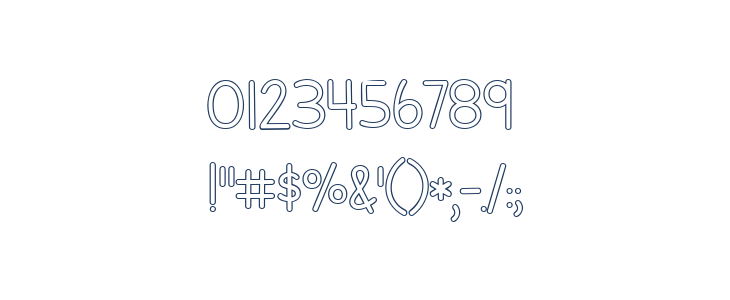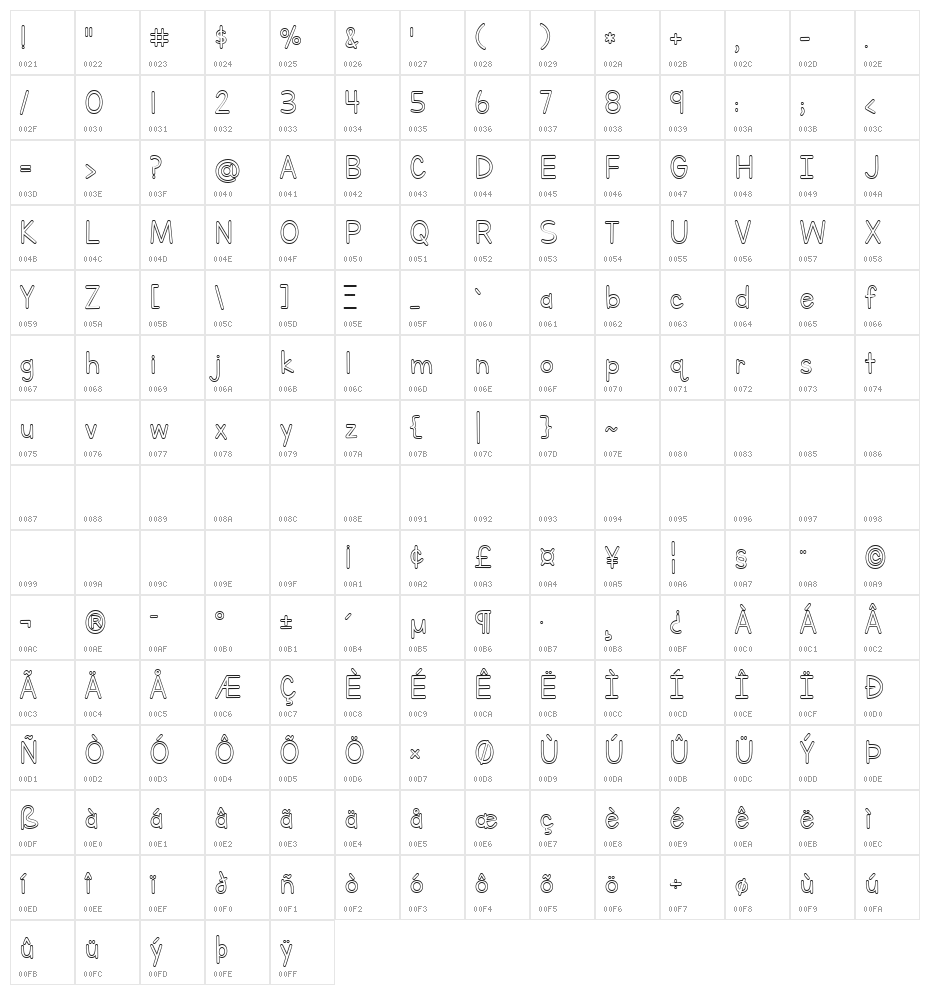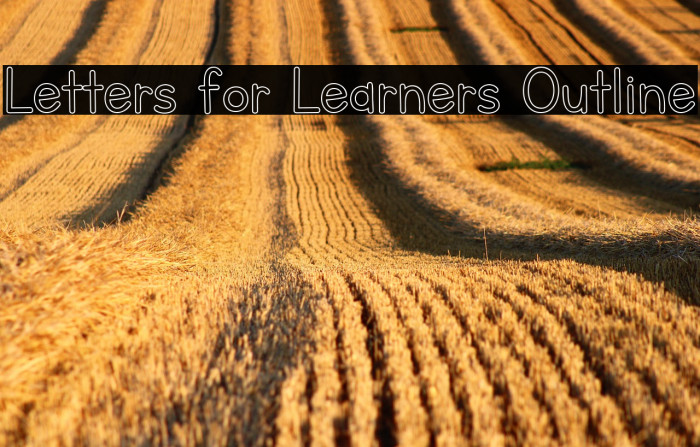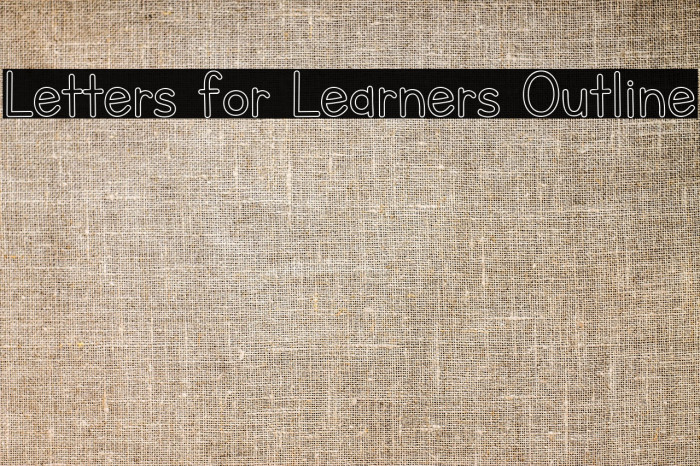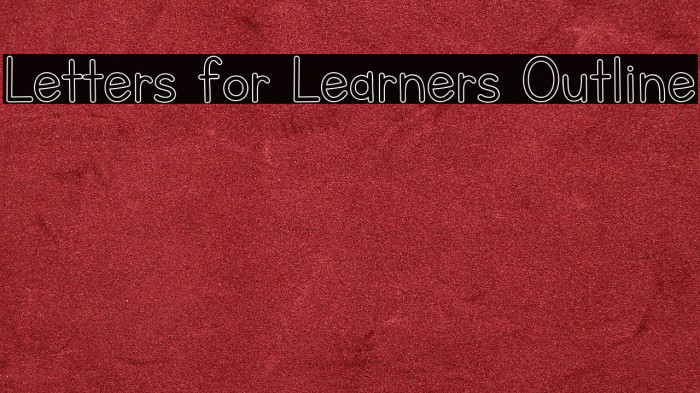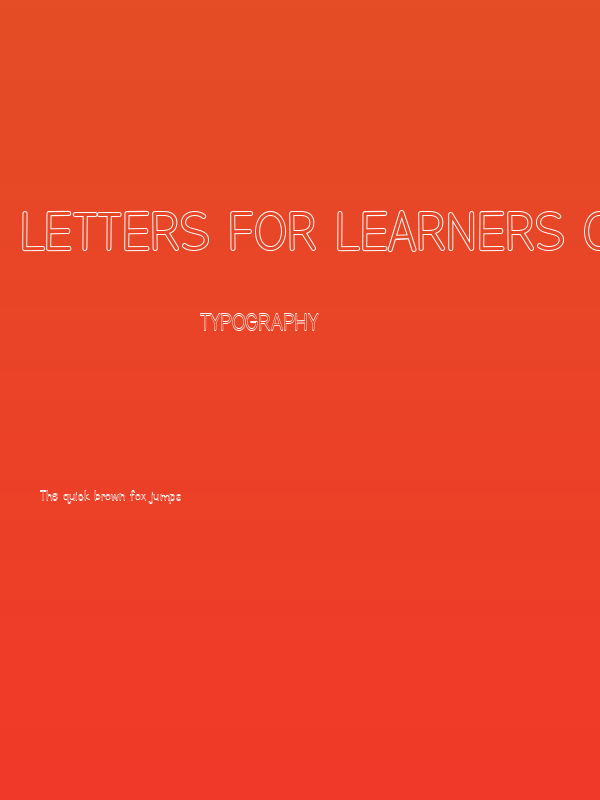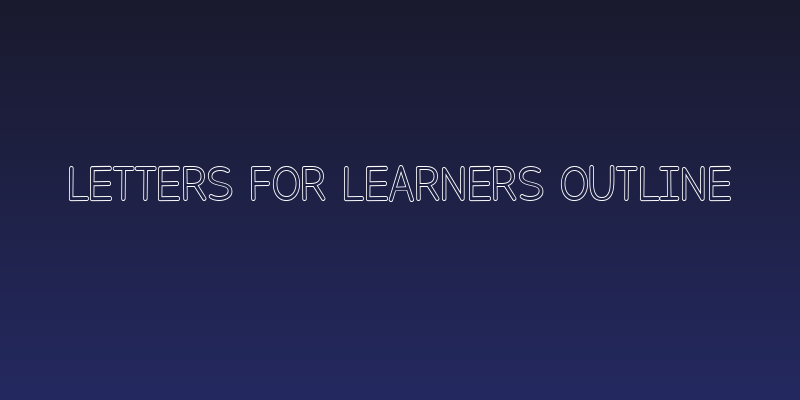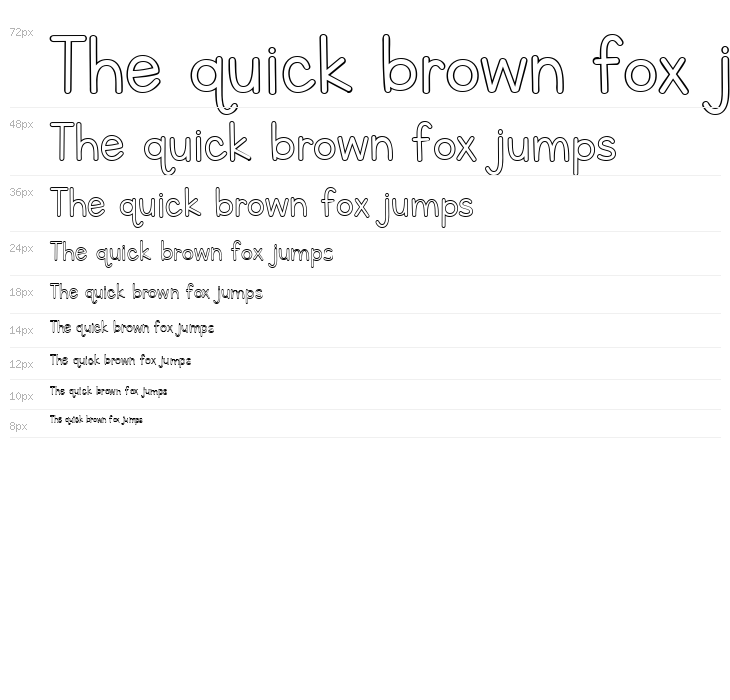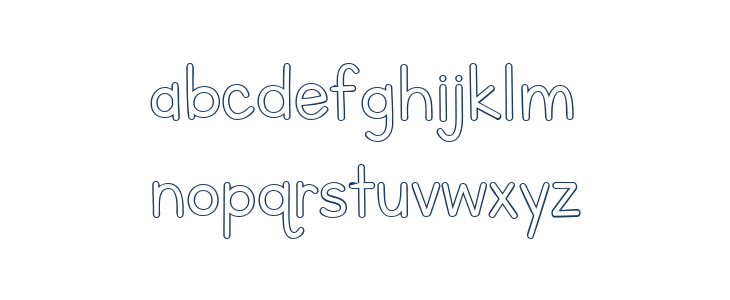
Letters for Learners Outline Font
Letters for Learners Outline Description
This font features a playful and approachable outline style, perfect for educational and creative projects. The characters are evenly spaced and maintain a consistent stroke width, giving it a clean and legible appearance. The uppercase and lowercase letters are well-proportioned, with rounded edges that add to its friendly and inviting look. Numbers and special characters are designed to match the overall style, ensuring a cohesive appearance across all text elements. The outline design allows for creative coloring and customization, making it ideal for projects that require a personal touch.
| Use Case | Headlines, Educational materials, Creative projects |
| Proposed Projects | Ideal for children's books, educational materials, coloring pages, and creative design projects. |